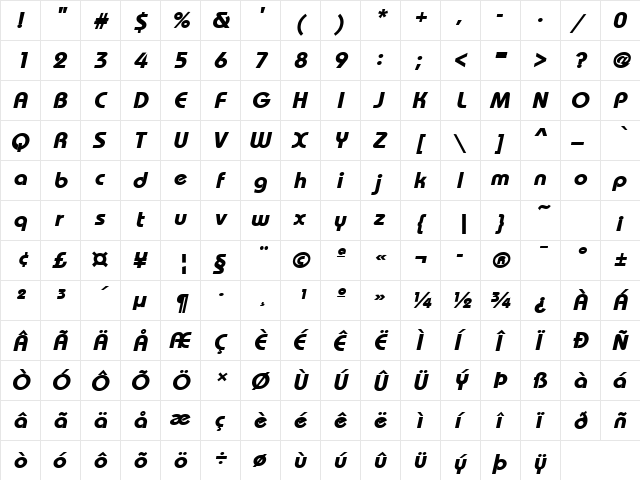
BauhausLH Bold Italic
Design Context for BauhausLH Typeface
BauhausLH is a composed and adaptable typeface that performs quietly and consistently across a wide range of design contexts. The slanted form adds forward momentum and visual energy. Its bold stroke weight gives it real presence on the page.